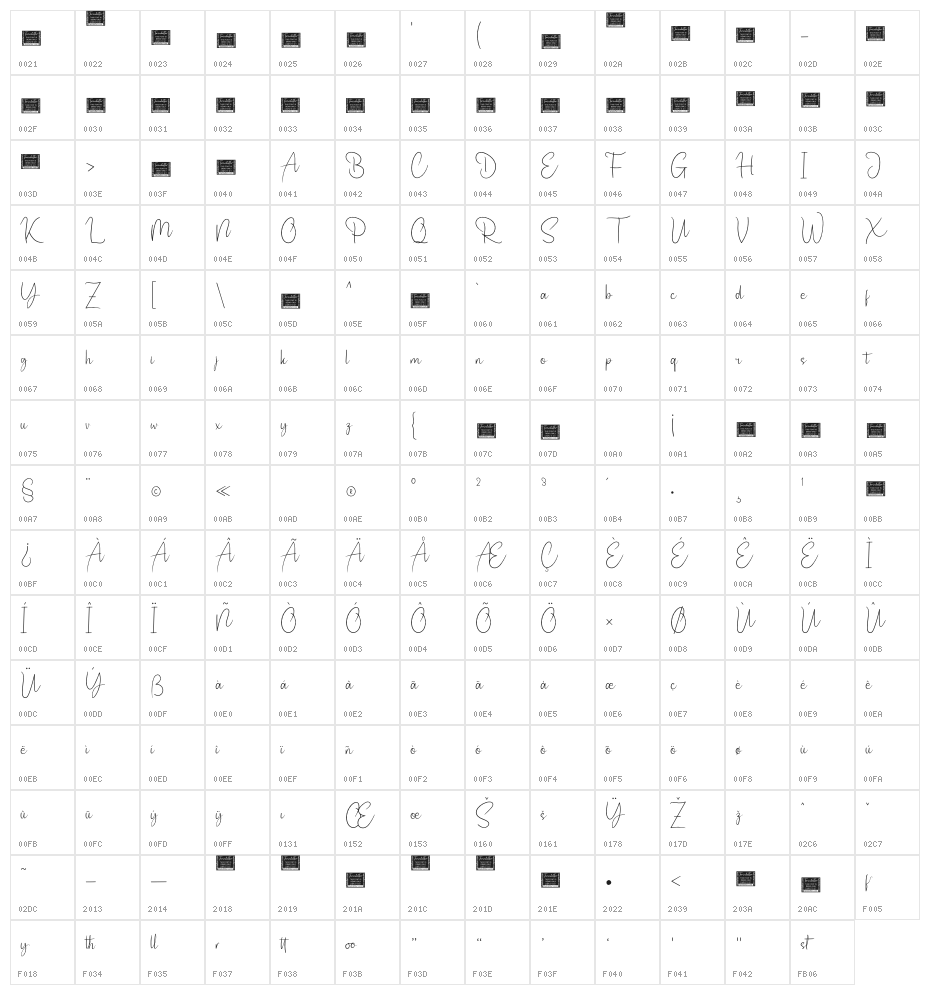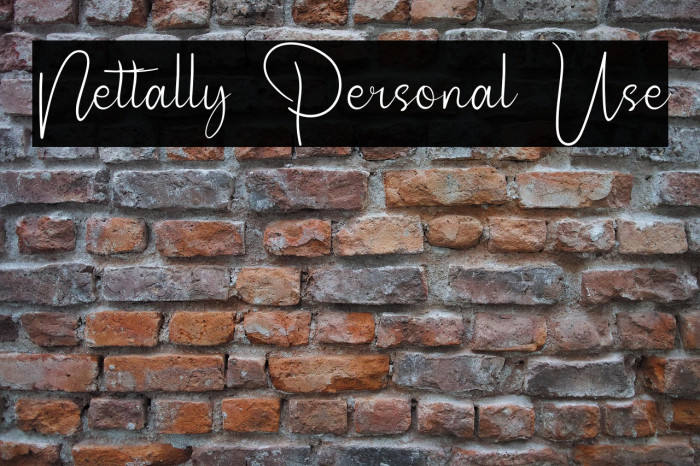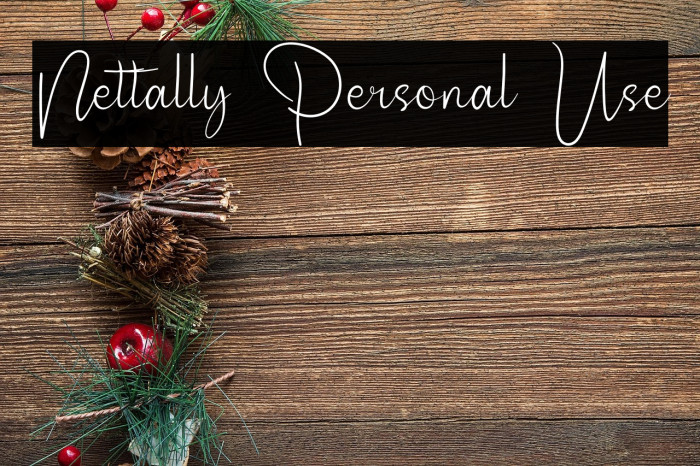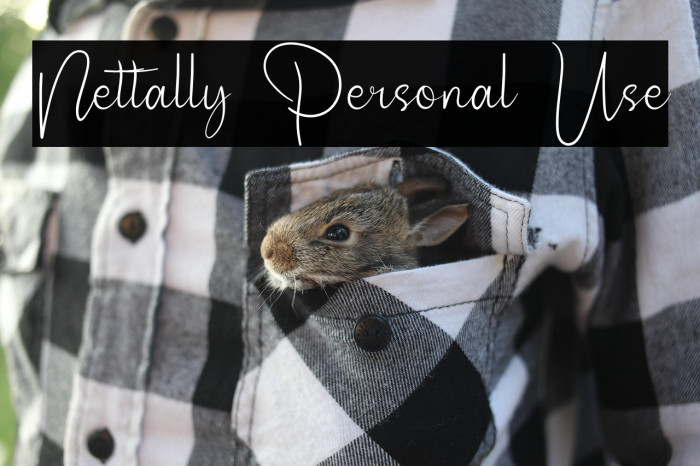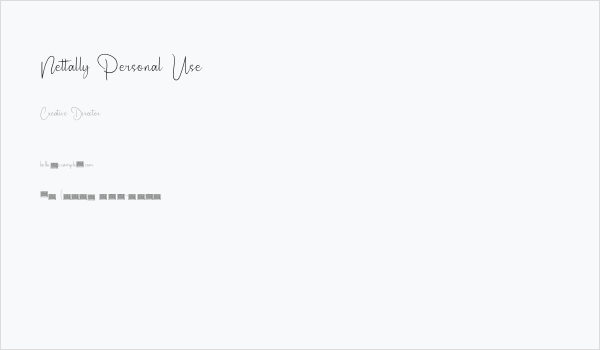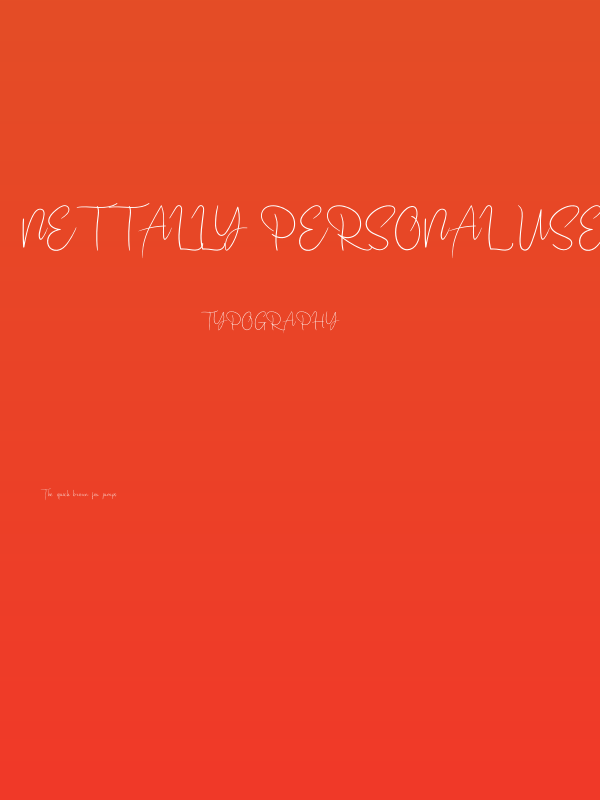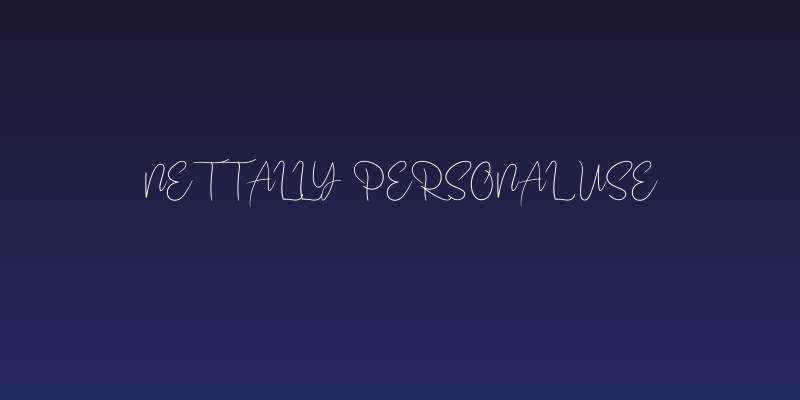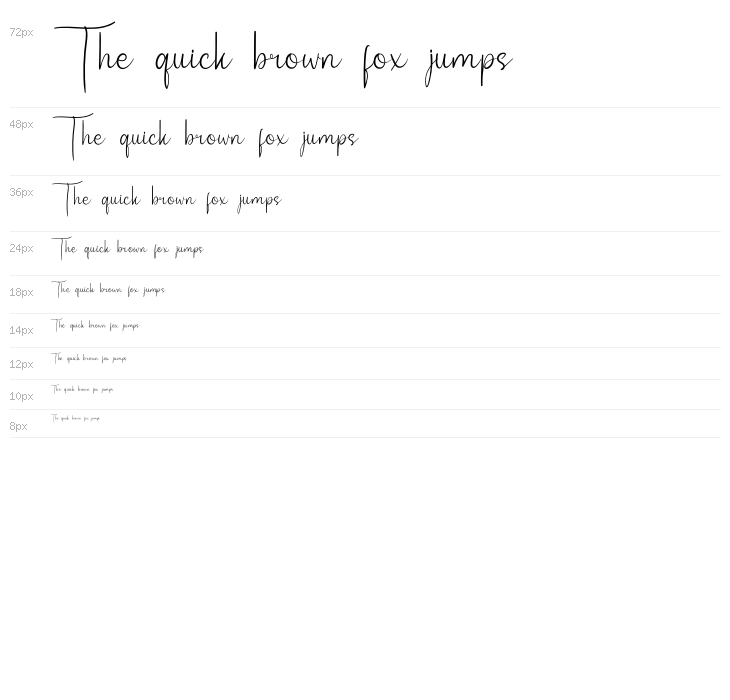
Nettally Personal Use Font
Nettally Personal Use Description
This font features a delicate and flowing script style, characterized by its elegant and elongated letterforms. The uppercase letters exhibit a graceful, cursive design with smooth curves and a slightly whimsical flair. The lowercase letters maintain a consistent style, offering a harmonious blend of loops and swashes that enhance its sophisticated appearance. The font's overall aesthetic is both modern and timeless, making it suitable for a variety of design applications. The characters are well-spaced, providing a balanced and readable text flow, while the thin strokes add a touch of refinement and elegance.